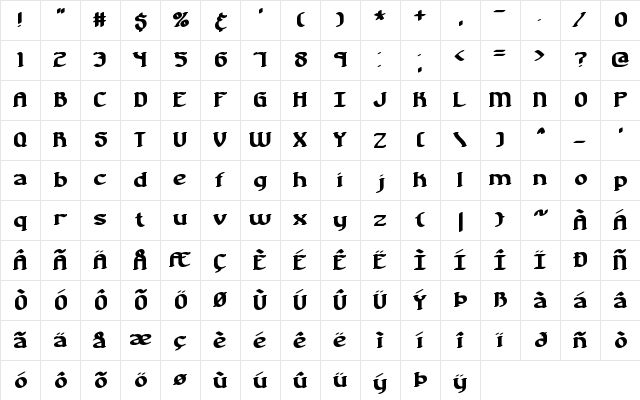
Nostalgia BRK Normal
| Foundry | ƎIGMA FONTS |
| Designer | ƎIGMA FONTS - Brian Kent |
Design Context for Nostalgia BRK Typeface
Nostalgia BRK is a composed and adaptable typeface that performs quietly and consistently across a wide range of design contexts.